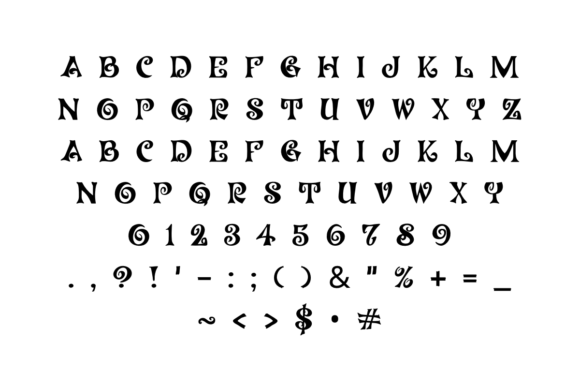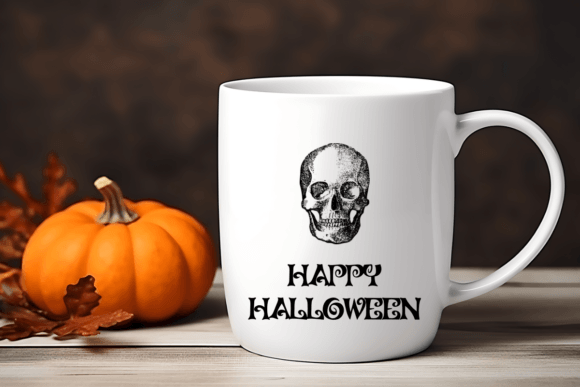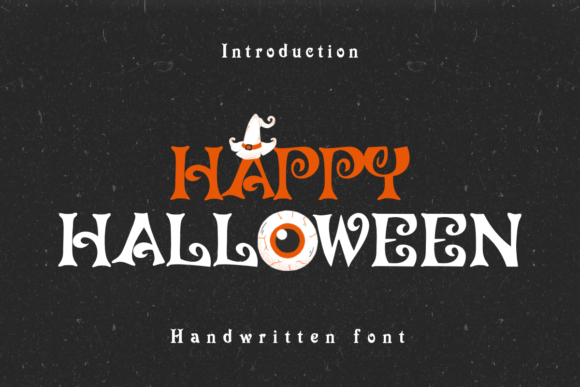
Happy Halloween Font
Designer: Nun Sukhwan
Happy Halloween Font is written in a curly, playful handwritten font. The letters have a fun, swirly style, making the text feel festive and spooky. It’s perfect for Halloween decorations or cards, adding a touch of whimsy to the holiday message.